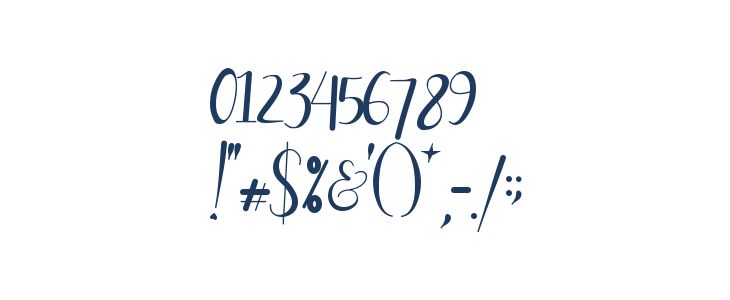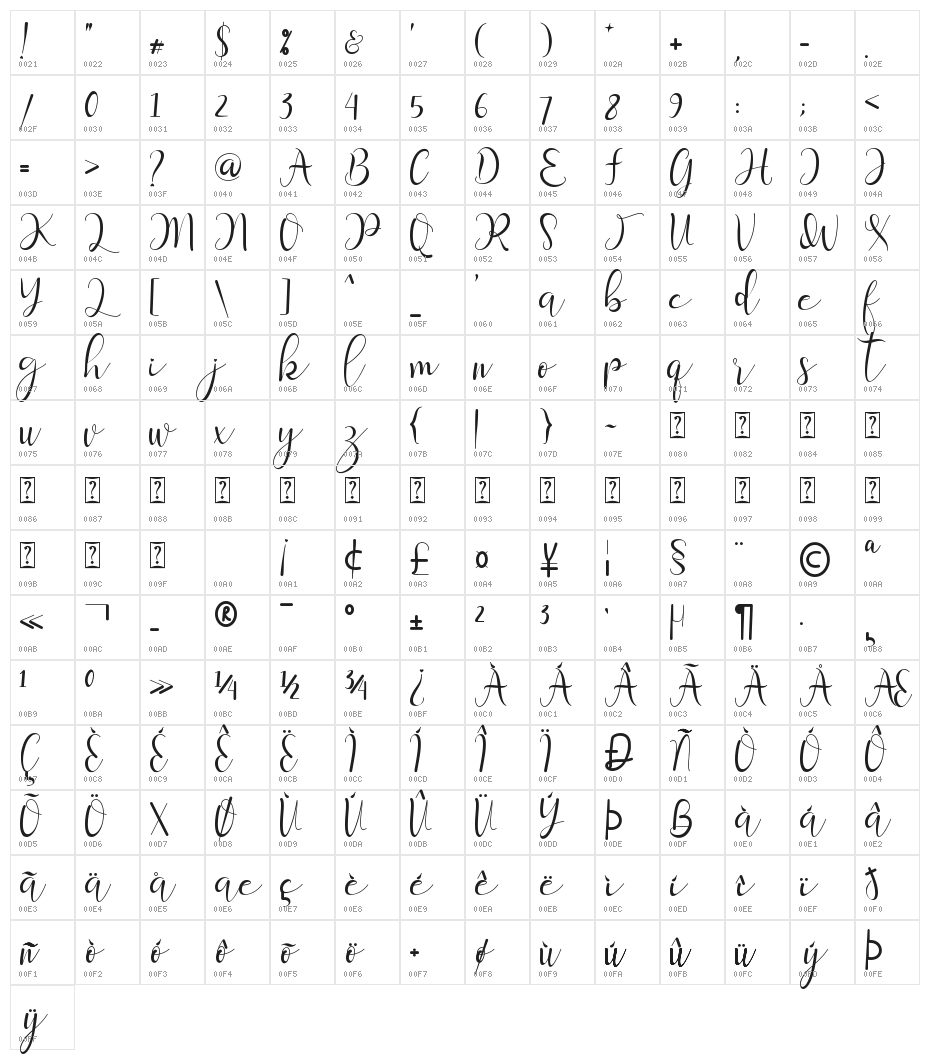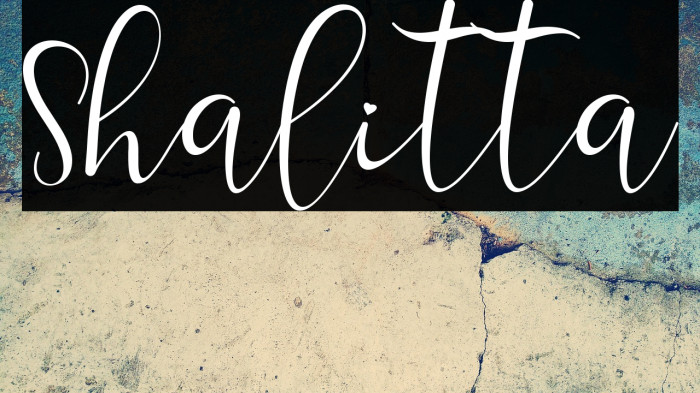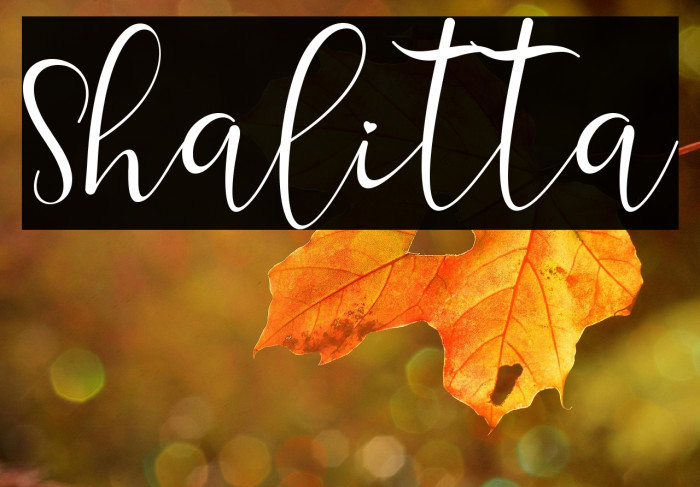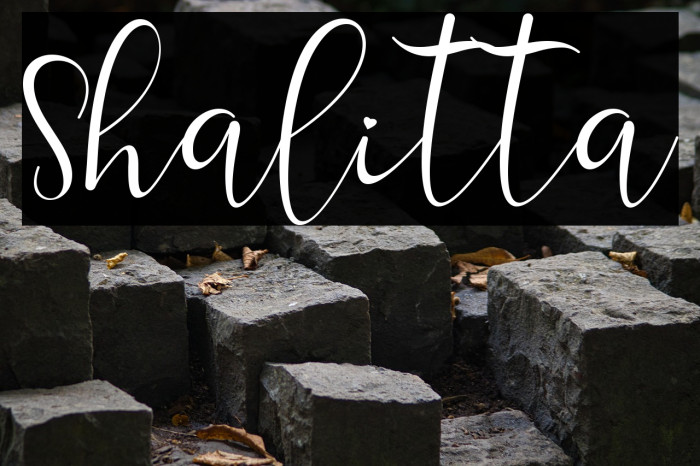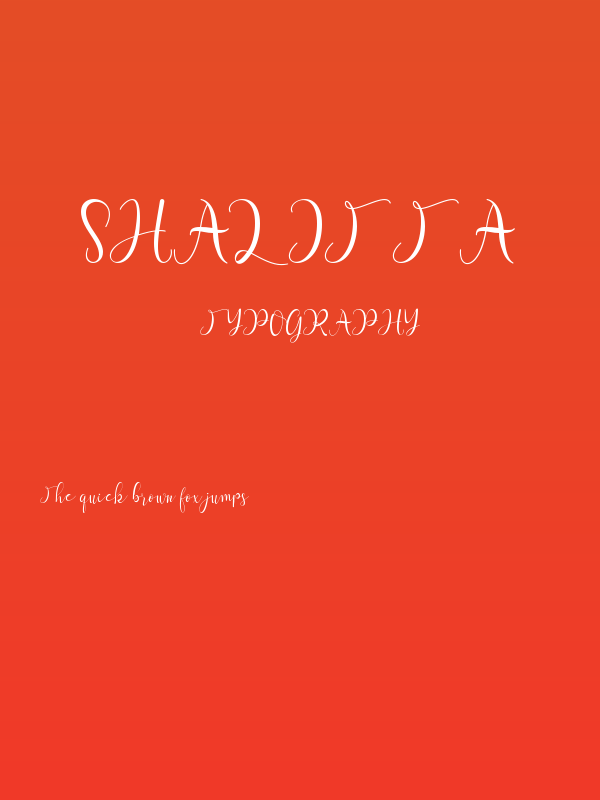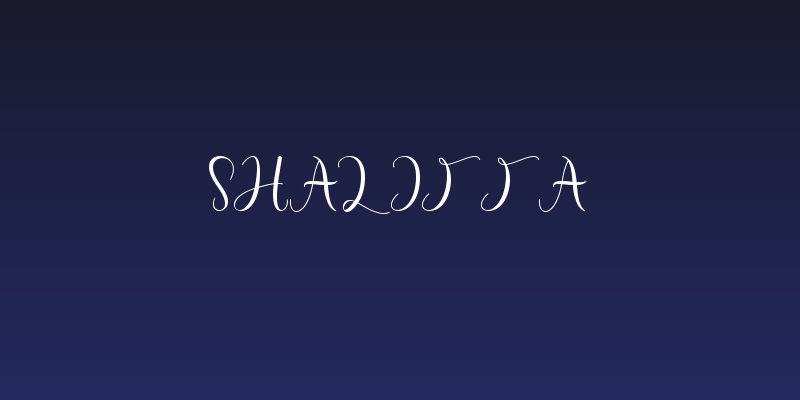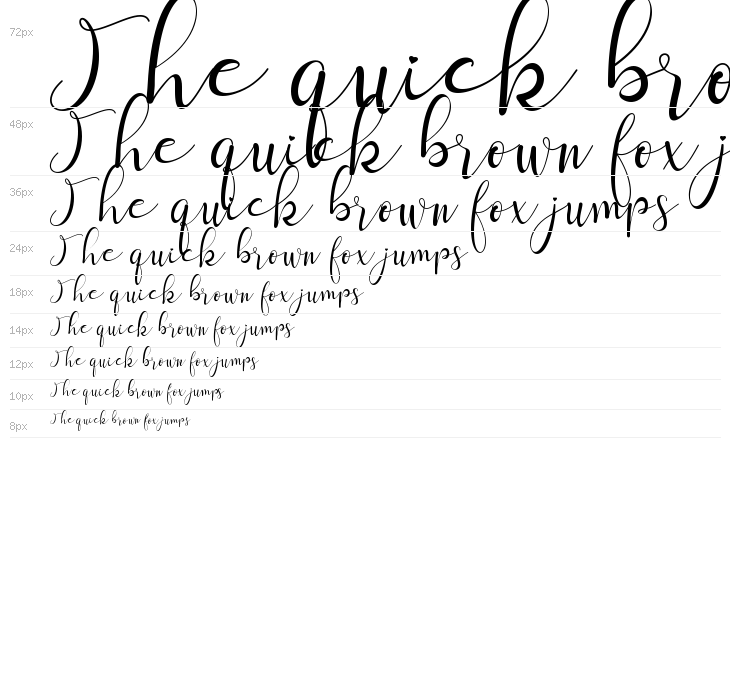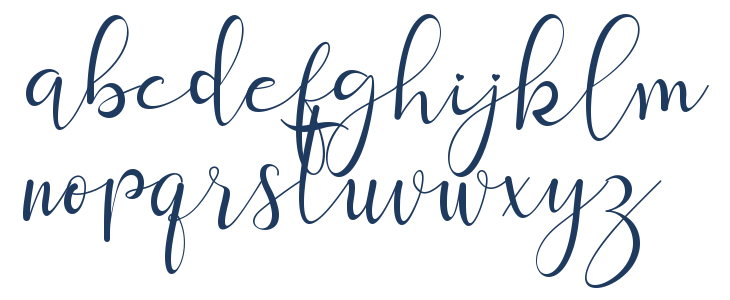
Shalitta Font
Shalitta Description
This font features an elegant and flowing script style, characterized by its smooth, cursive strokes and graceful curves. The uppercase letters are bold and expressive, with distinctive loops and swirls that give a sense of movement and sophistication. The lowercase letters maintain a consistent flow, complementing the uppercase with their refined and delicate appearance. The numerals are stylishly crafted, maintaining the overall script theme with a touch of flair. Special characters are thoughtfully designed to match the font's aesthetic, ensuring a cohesive look throughout. This font exudes a sense of elegance and charm, making it ideal for projects that require a personal and artistic touch.